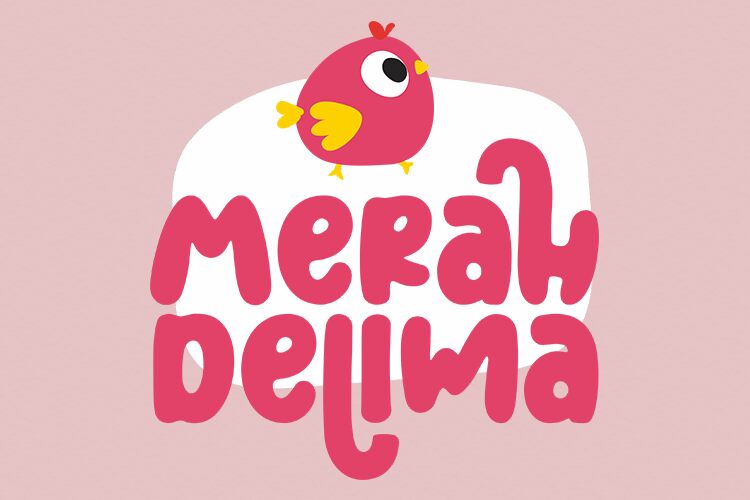
Merah Delima by Zain Fahroni is a playful and whimsical display font that adds a touch of fun to any project. Its extra-bold weight and cartoon style make it perfect for children's books, comic books, or any design that needs to convey a sense of joy and lightheartedness. This font is also suitable for branding, packaging, and social media graphics. Merah Delima's unique design will make your designs stand out from the crowd while maintaining readability. Bring your projects to life with Merah Delima!